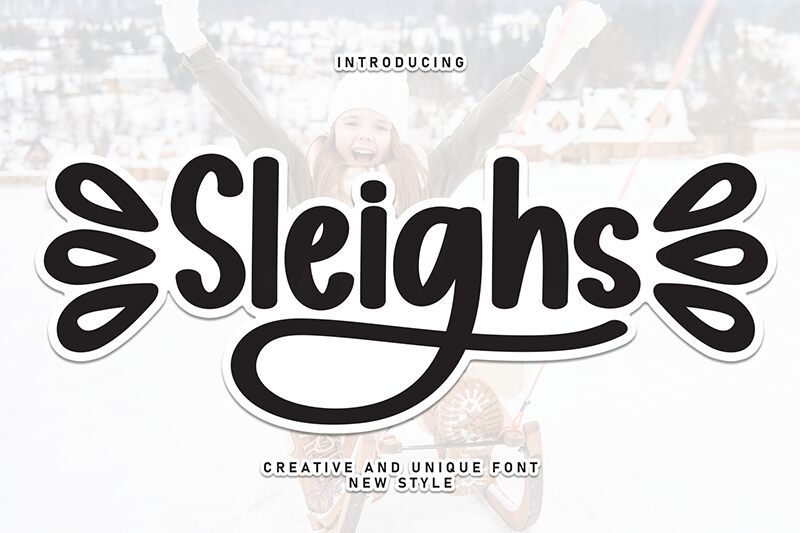
Sleighs
Sleighs font is a charming handwritten creation by Scratchones that captures the elegance and approachability of classic sign-painting styles. With its handcrafted feel, this elegant free font resonates with a vintage flair, bringing warmth and personality to any design.
Perfect for vintage-themed designs, Sleighs is ideal for logos, invitations, packaging, menus, greeting cards, book covers, posters, apparel design, quote prints, stationery projects and social media graphics.